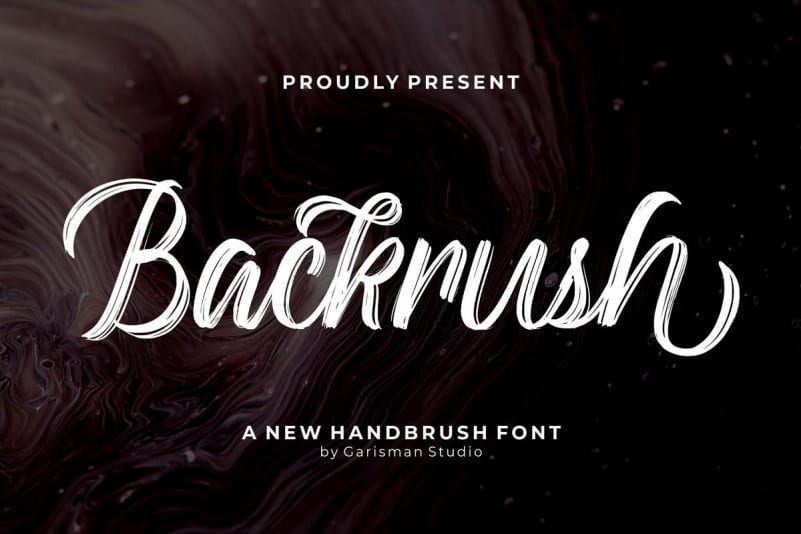
Backrush Brush Font
Hesitant brushstrokes create wobbly lines. And if brushstrokes are the tapestry of a painting, then this font is the incredible end-result artists strive to have.
They aim not for perfection but confidence, and remarkable strokes and an obvious sense of direction, so if that’s your intention and tone, check out Backrush Brush Font.
This modern script typeface brings users, both with its free and commercial version, bold elegant letters with detailed brush designs for each character.
Make it part of your brand imagery, product packaging and merchandise, and social media posts, or use it for typography artwork and handwritten quotes, sharing its attractive curves and edgy look both online and in print.
And since Backrush by Garisman Std. stands out even more when used with other fonts, its alternates and swashes can be mixed and combined with other resources for card designs and posters.